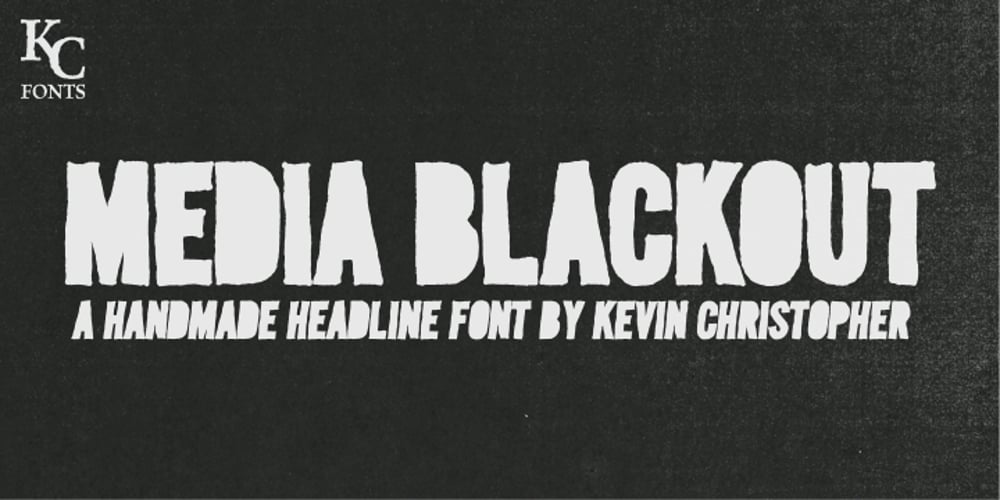
Media Blackout
Media Blackout font
Media Blackout Font Family was designed by Kevin Christopher and published by KC Fonts. Media Blackout contains 3 styles and family package options. Media Blackout is a handmade font with rugged good looks. The Media Blackout Family consists of three fonts: Normal, Italic & Marker. Media Blackout Marker takes the handcrafted look one step further by adding heavy hand etched lines for a truly unique look. For an even more handmade look, switch between uppercase and lowercase for a change of etching.